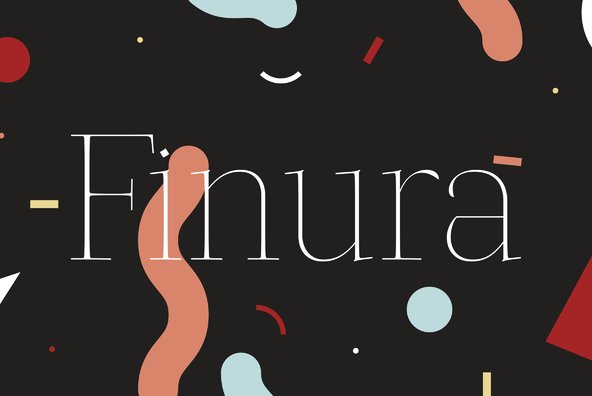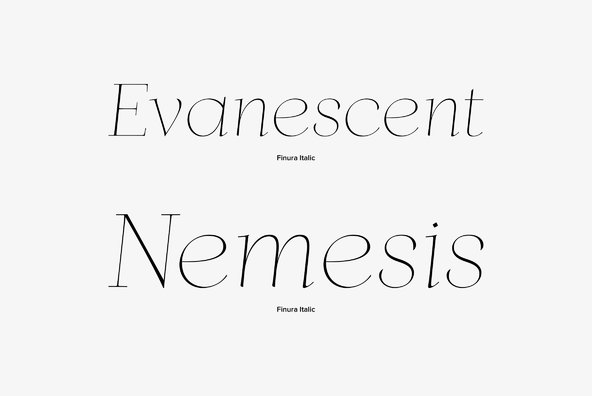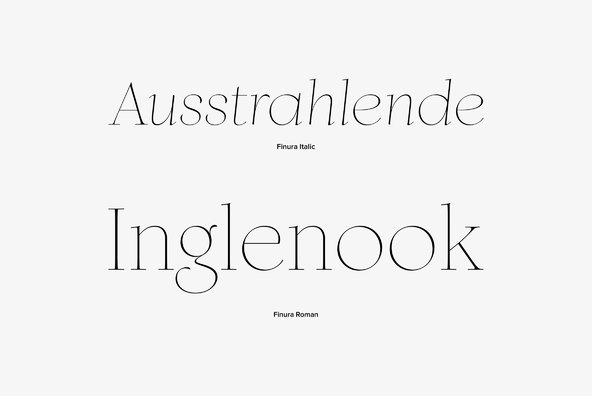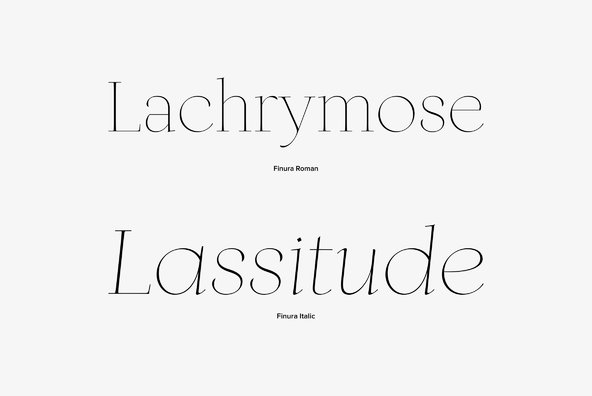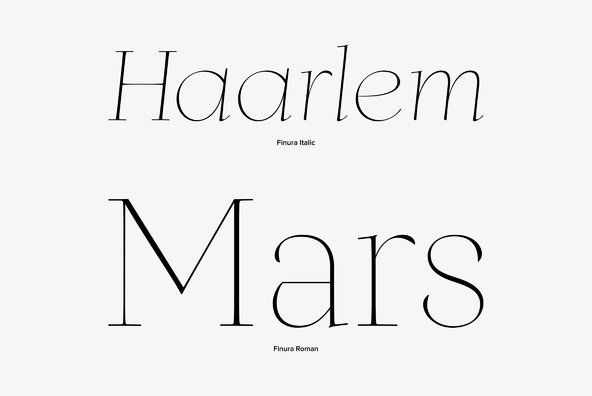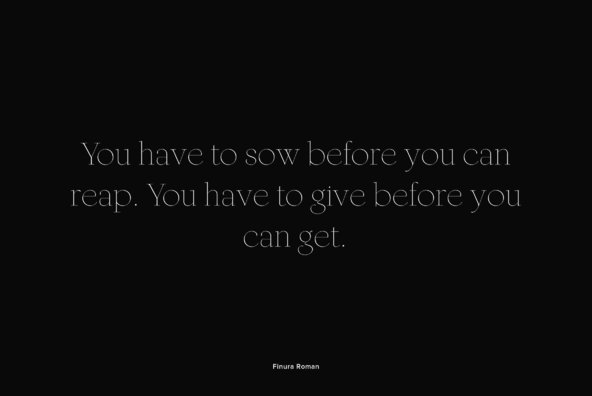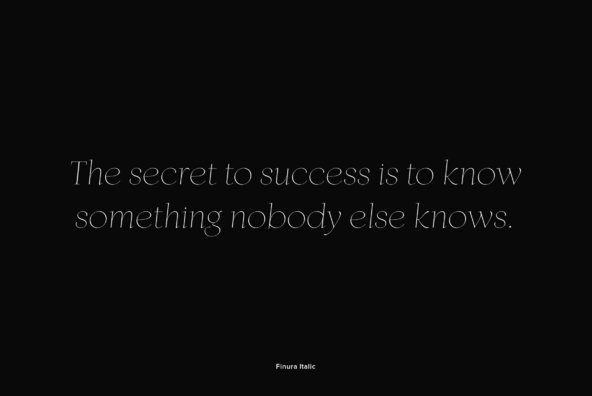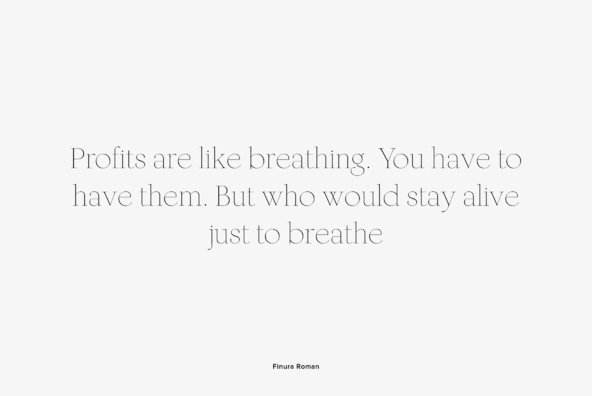
Finura was inspired by American lettering from the 60s, specially the Stunt Roman for ruling pen and compass presented in the Speedball Textbook for Pen & Brush Lettering by Ross F. George, but also by looking carefully to University Roman characteristics.
Finura is an experience on very thin poster typefaces and the possibilities to design extreme delicate typefaces, with plenty details, that sheer simplicity and readability to the classic forms.